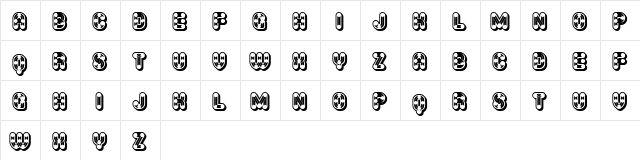
Furious Ride Spotty Regular
| Designer | Vladimir Nikollic |
Design Context for Furious Ride Spotty Typeface
Furious Ride Spotty is a composed and adaptable typeface that performs quietly and consistently across a wide range of design contexts.